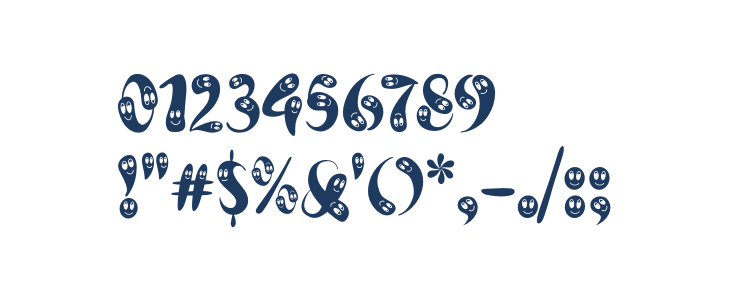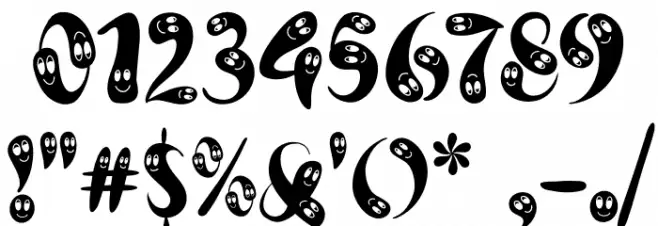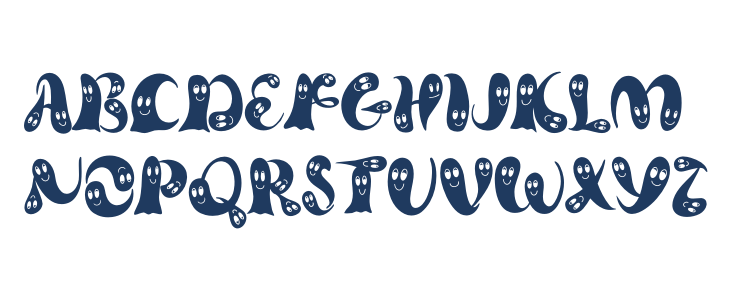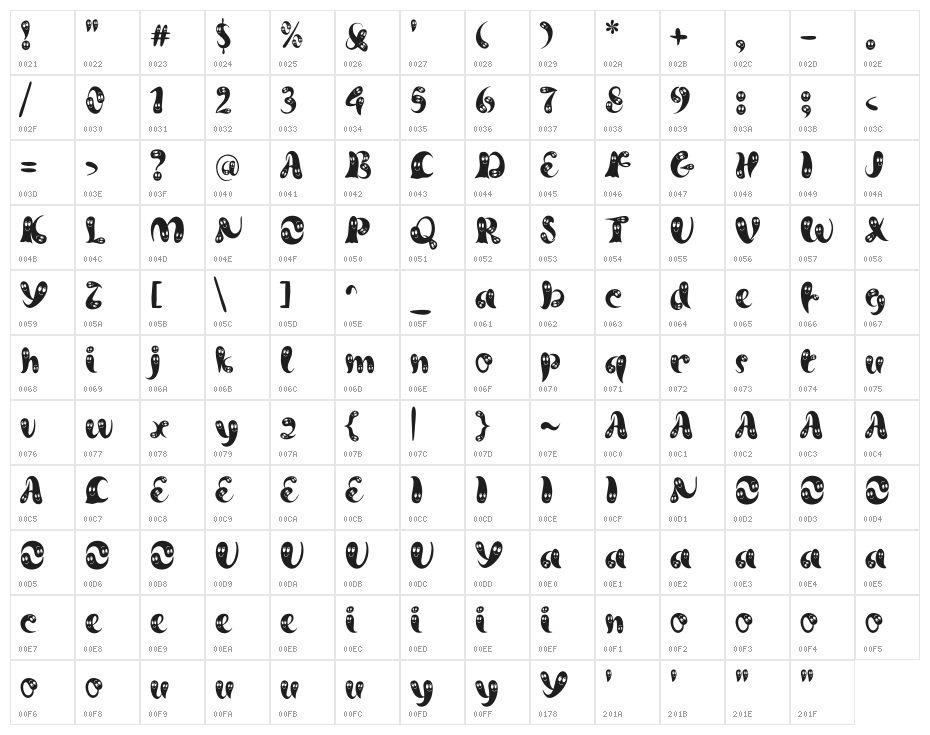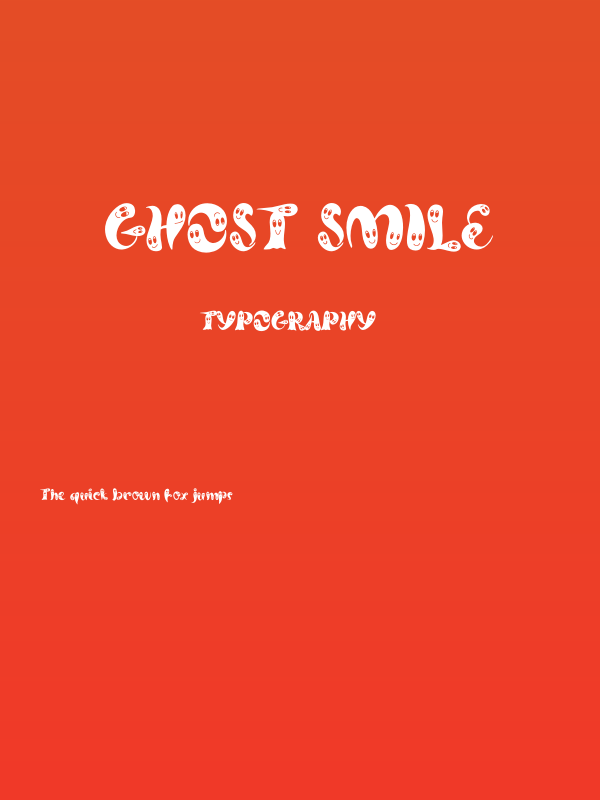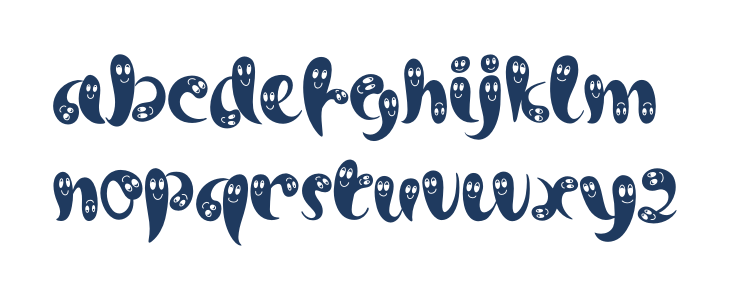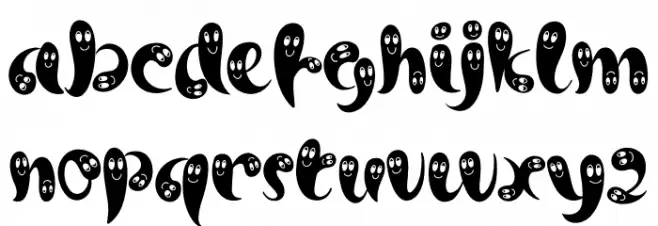
Ghost Smile Font
Ghost Smile Description
A playful, decorative typeface featuring ghost-like characters with expressive eyes integrated into each letter and symbol, creating a whimsical and spooky effect. The shapes are rounded and organic, with varying stroke thickness and a hand-drawn appearance.
| Overall Style | Decorative, Playful, Whimsical, Spooky |
| Use Case | Headlines, Posters, Logos, Event Invitations |
| Proposed Projects | Halloween invitations, party flyers, children's books, themed posters, spooky branding, seasonal packaging. |